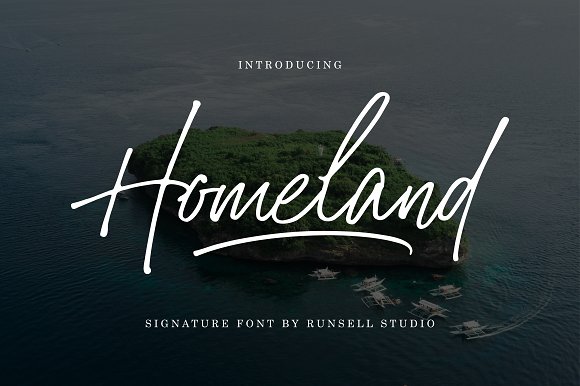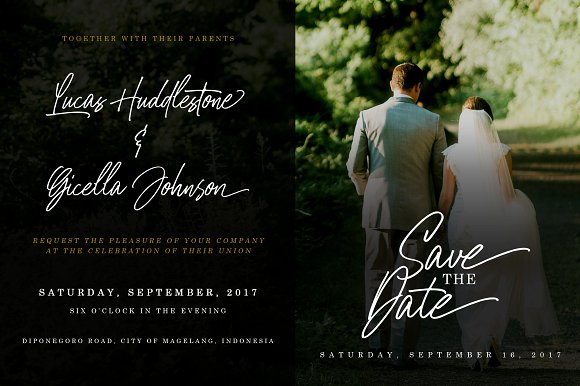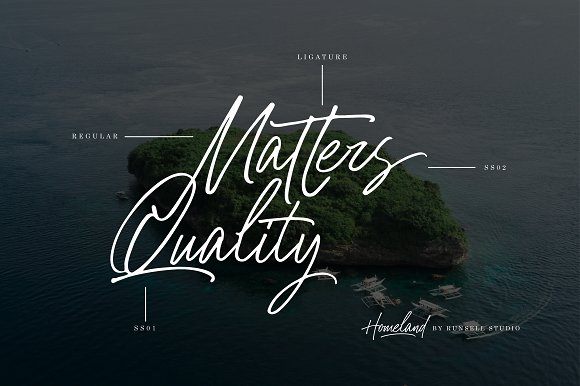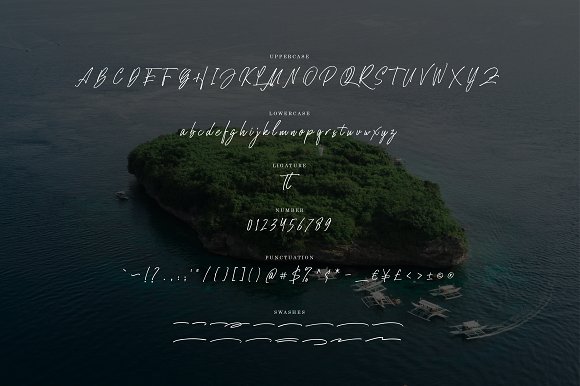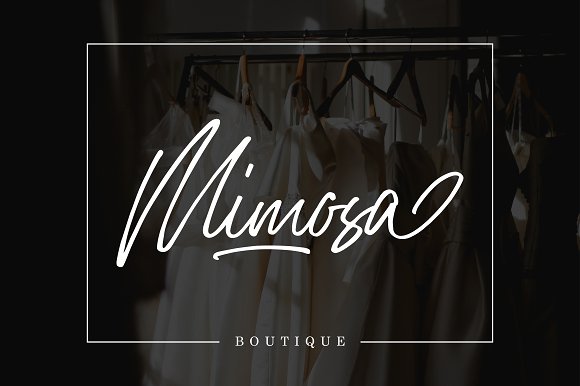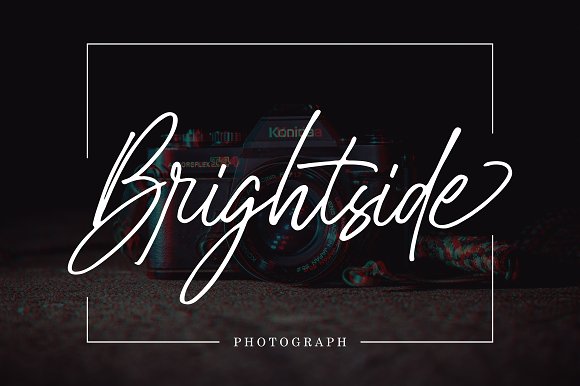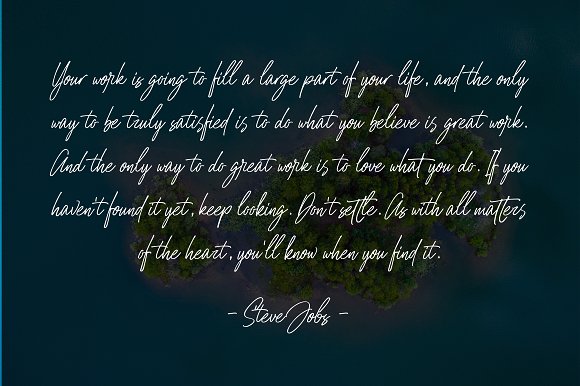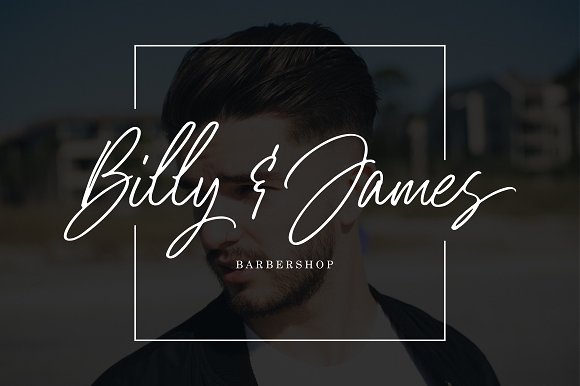
Homeland Script Font
Homeland is a beautiful signature font with the natural flow. Homeland signature style perfectly on invitations, logotype, branding, art quote, cards, product packaging, headers, letterhead, apparel design, label, and etc. Homeland comes with uppercase, lowercase, numerals, punctuation, multilingual characters.